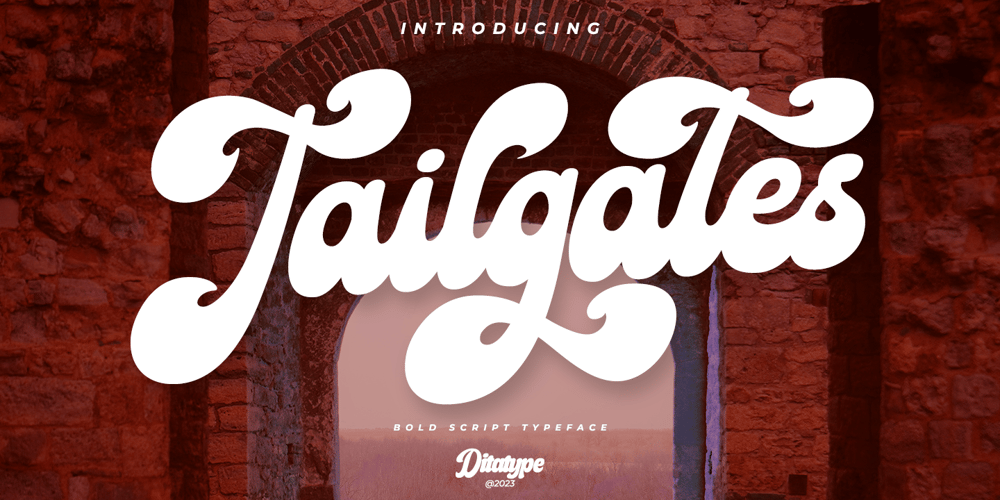
Tailgates
Tailgates Font Family was designed by Donis Miftahudin and published by Ditatype. Tailgates contains 1 styles and family package options. Introducing Tailgates, a script font that exudes a robust and inviting charm. This typeface showcases a substantial weight, offering your text a bold and captivating presence. Tailgates is characterized by its rounded letterforms, contributing to a friendly and approachable aesthetic. With consistent proportions and a relatively high contrast, it achieves a dynamic and eye-catching design.What sets Tailgates apart are the captivating swinging ends that adorn select letters. These elegant flourishes add a sense of whimsy and grace to your text, creating a visual experience that is both lively and engaging. The combination of round shapes and these decorative elements adds a unique touch to your designs. In addition, enjoy the features here.Features: Ligatures Stylistic Sets Swashes Multilingual Supports PUA Encoded Numerals and Punctuations Tailgates fits in headlines, logos, posters, flyers, branding materials, print media, editorial layouts, and many more designs. Find out more ways to use this font by taking a look at the font preview.Thanks for purchasing our fonts. Hopefully, you have a great time using our font. Feel free to contact us anytime for further information or when you have trouble with the font. Thanks a lot and happy designing.